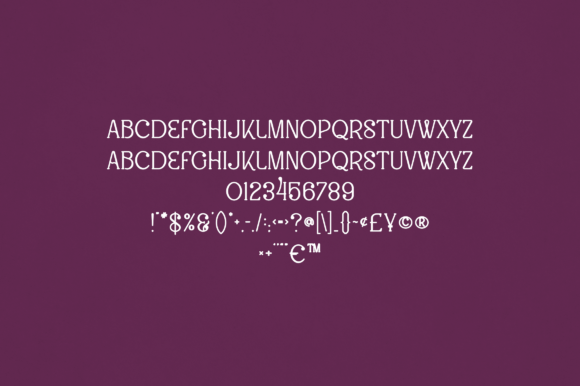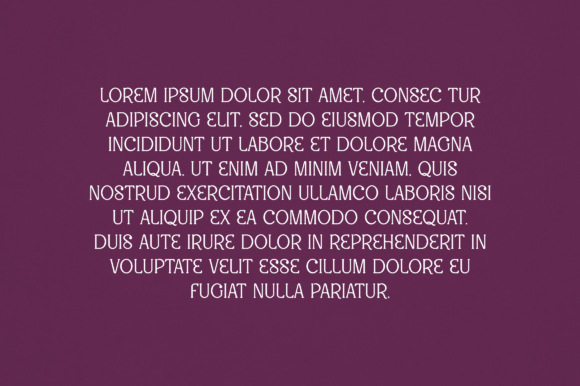
Introducing Calista Font: Elevate Your Typography with Elegance and Versatility
In the world of design, typography plays a crucial role in conveying messages, expressing creativity, and establishing brand identity. Among the numerous fonts available, Calista stands out as a beacon of elegance and versatility. This stunning font is designed to transform your typography into something truly unique and captivating, making it perfect for a wide range of design projects.
The Charm of Calista Font
Calista is more than just a font; it’s an experience. Its elegant design ensures that every piece of text, whether it’s a logo, headline, or plain text, exudes sophistication and refinement. The versatility of Calista lies in its ability to adapt to various design contexts, from branding and product packaging to magazine headers and text overlays on background images.
Whether you’re a professional designer or a crafter with a passion for DIY projects, Calista is an invaluable asset to your creative toolkit. Its extensive range of applications includes:
• Branding Projects: Use Calista to create memorable logos, business cards, and letterheads that reflect your brand’s personality.
• Home-ware Designs: Add a touch of elegance to your home decor designs, such as wall art, invitations, and packaging.
• Product Packaging: Stand out on store shelves with eye-catching packaging that features Calista’s sophisticated typography.
• Magazine Headers: Elevate your editorial designs with stylish headers and titles that capture readers’ attention.
• Text Overlays: Create stunning visual content by overlaying Calista text on background images for social media posts, blogs, or website headers.
Why Choose Calista Font?
Calista’s unique blend of elegance and versatility makes it an ideal choice for designers and crafters seeking to elevate their typography. Here are some reasons why Calista should be your go-to font:
• Unique Typography: Calista offers a distinctive style that sets your designs apart from the crowd.
• High Readability: Despite its elegant appearance, Calista maintains high readability, making it suitable for both headings and body text.
• Flexibility: Use Calista across various design projects, from digital content to print materials.
Tips for Using Calista Font Effectively
To maximize the impact of Calista in your designs, consider the following tips:
• Experiment with Sizes: Play with different font sizes to create visual hierarchy and emphasize key messages.
• Pair with Simplicity: Combine Calista with simple backgrounds or design elements to let the typography shine.
• Color Matters: Choose colors that complement Calista’s elegance, such as muted tones or rich jewel tones.
• Consistency is Key: Use Calista consistently across your design projects to establish a cohesive brand identity.
Calista font is a game-changer for designers and crafters looking to infuse elegance and versatility into their typography. Its wide range of applications, from branding and packaging to editorial design and text overlays, makes it a valuable asset in any creative arsenal. By incorporating Calista into your design projects, you’ll not only elevate your typography but also create visually stunning and memorable content that stands out.
Unlock the full potential of your designs with Calista font. Experience the difference that elegant and versatile typography can make.